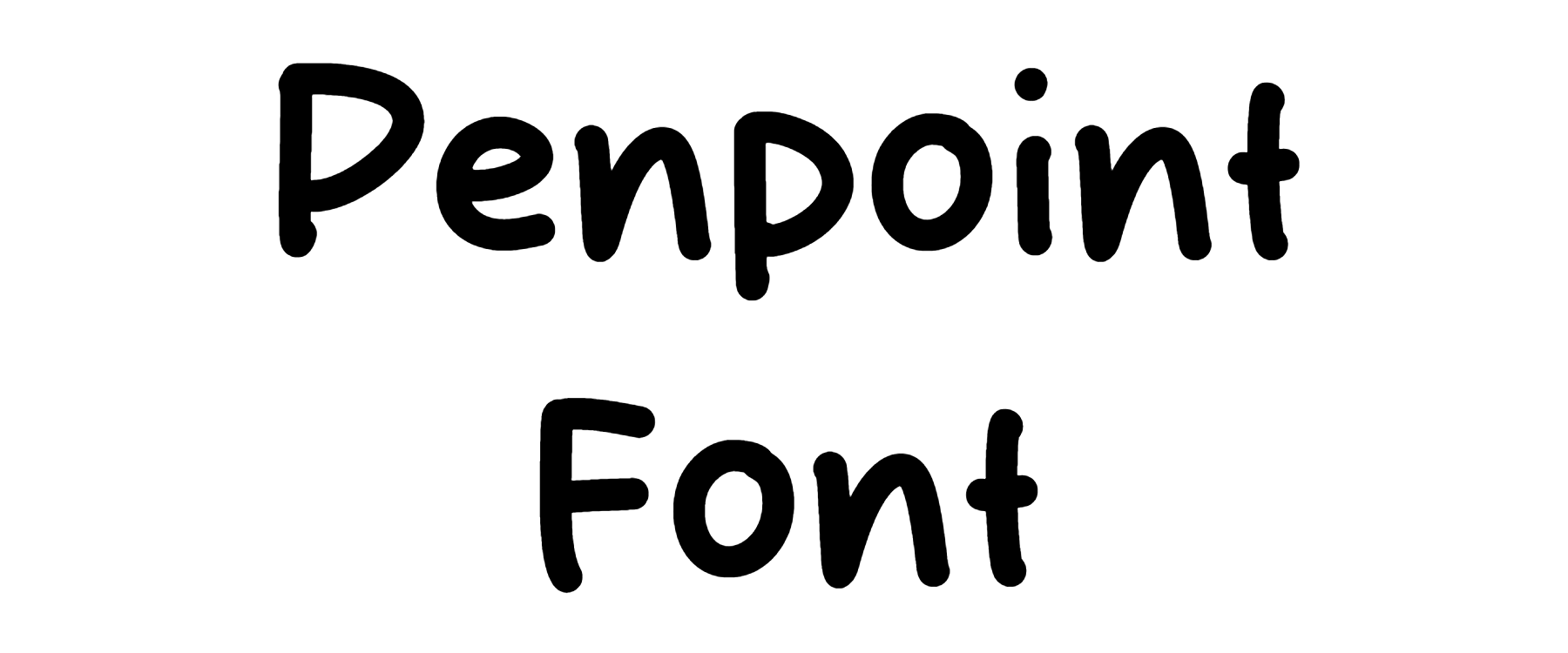
Penpoint
Penpoint is a handwritten font created by MJType (Muhamad Junaid) (2025). It looks like someone actually wrote it by hand: relaxed, friendly and a little imperfect in a good way. You can download it for free and test it with your own words in the preview above.
- Designer: MJType (Muhamad Junaid)
What You Can Type With Penpoint
With complete upper and lowercase letters and all ten digits, Penpoint is ready for real wording, not just a single headline. Everyday marks like &, !, ? and @ are there too. Thanks to its accented letters, it also works for Spanish, French, German, Portuguese and Italian, not just English.
Where Penpoint Works Best
Penpoint is a natural fit for greeting cards, journal pages and friendly social posts. Set it a bit larger than you would a normal text font. Handwriting styles lose their charm once they get too small to read comfortably.
Who designed Penpoint font?
Does Penpoint support accented letters?
Yes. Penpoint includes the accented letters needed for Spanish, French, German, Portuguese and Italian, so it works for more than just English.